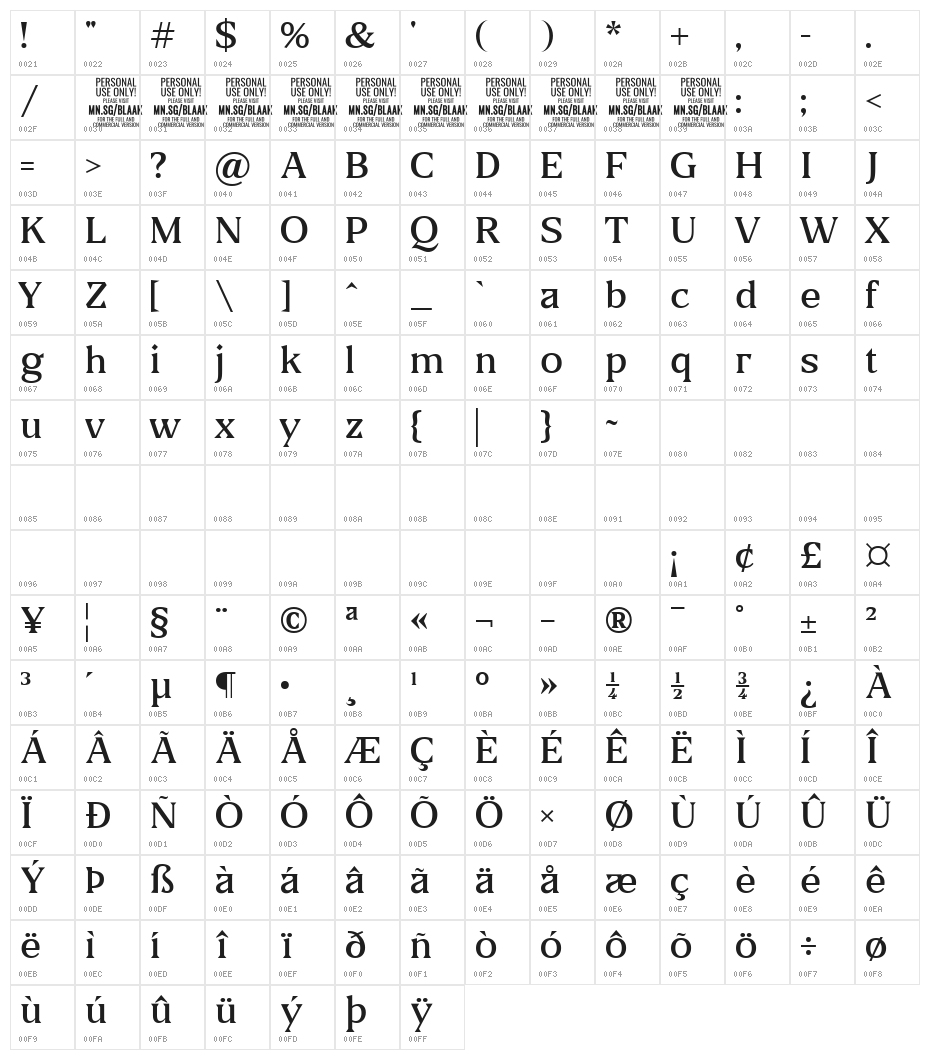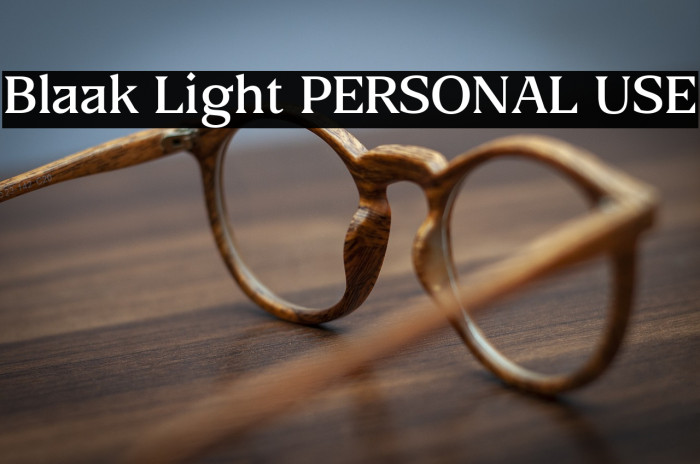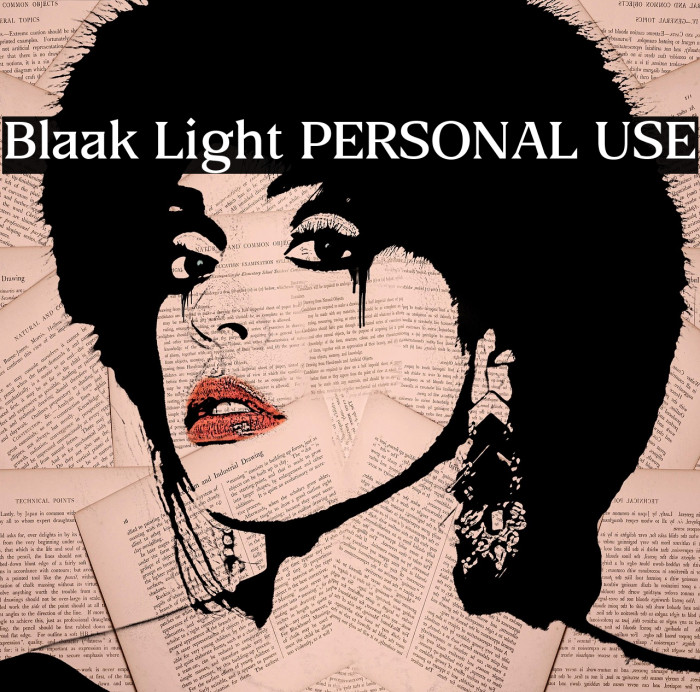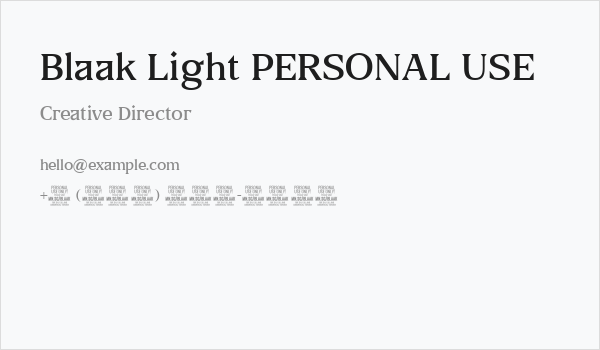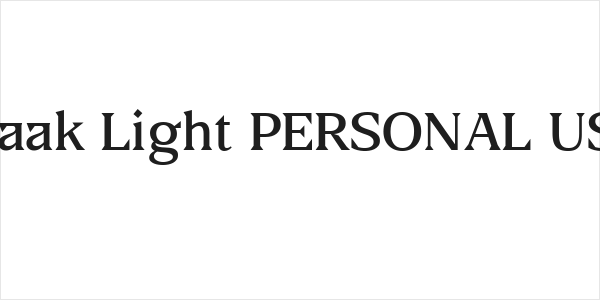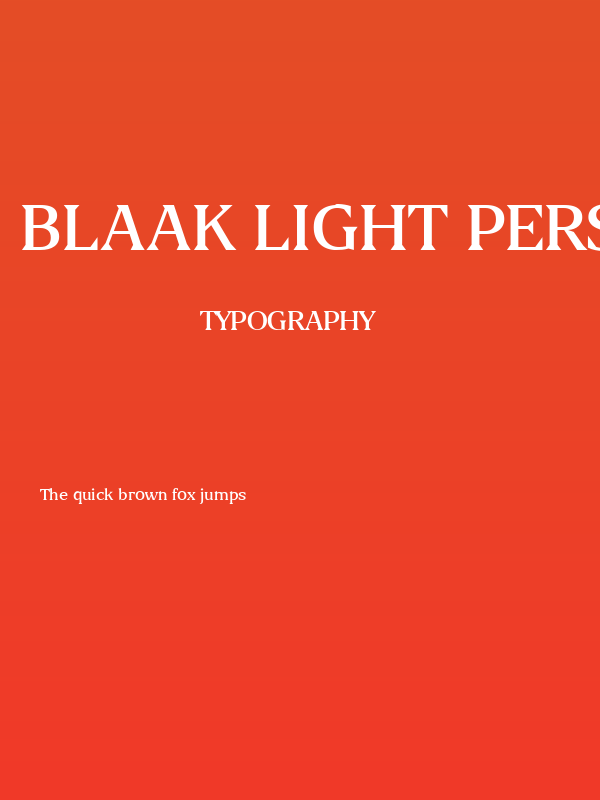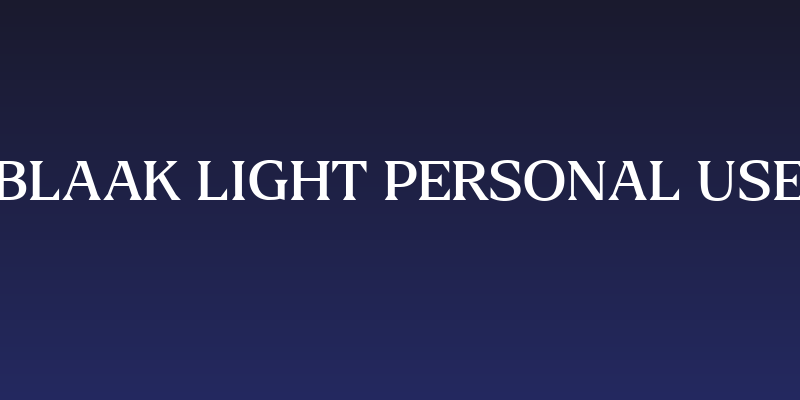
Blaak Light PERSONAL USE Font
Blaak Light PERSONAL USE Description
This font features a classic serif style with a modern twist, characterized by its elegant and sophisticated appearance. The uppercase letters are bold and commanding, while the lowercase letters maintain a refined and graceful look. The numerals and special characters are designed with a consistent style, ensuring a cohesive appearance across all text. The font's clean lines and balanced proportions make it versatile for various design applications. Its timeless appeal is suitable for both traditional and contemporary projects, offering a touch of elegance and professionalism.
| Proposed Projects | Ideal for branding, editorial design, invitations, and formal documents. |